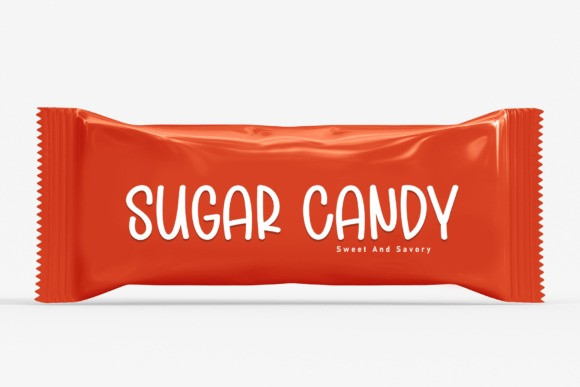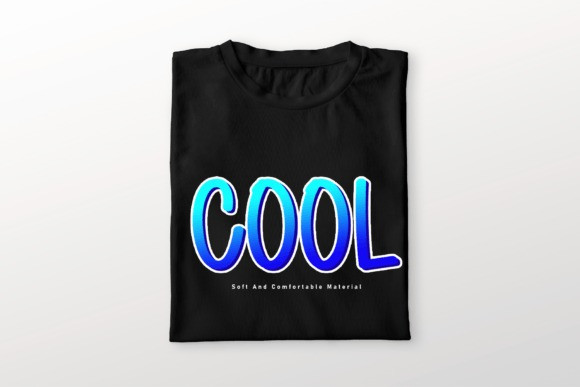
Christmas Minimalist Font
Christmas Minimalist Font is a charming display font that captures the essence of the holiday season with a clean and modern twist. With its simple lines and festive flair, this font adds a touch of holiday spirit to any project without overwhelming the design. Perfect for creating sleek and stylish Christmas cards, banners, or festive messages, Christmas Miniimalist brings a touch of joy to your typography with a minimalist vibe.